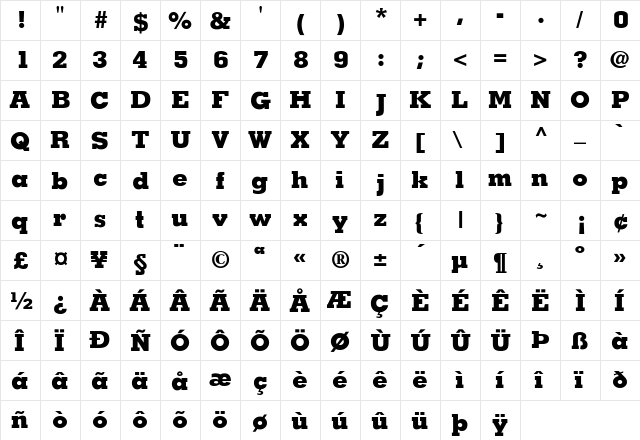
Memphis-ExtraBold Regular
Design Context for Memphis-ExtraBold Typeface
Memphis-ExtraBold is a composed and adaptable typeface that performs quietly and consistently across a wide range of design contexts. The heavy weight commands attention and anchors typographic hierarchies.